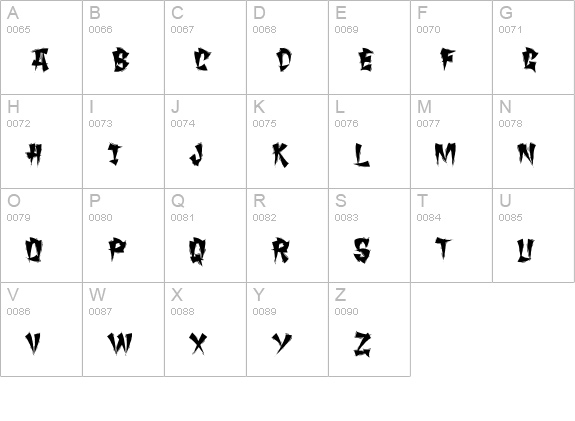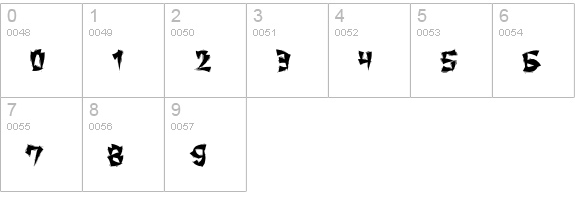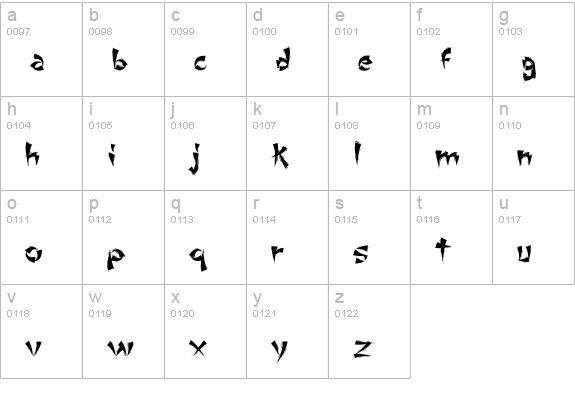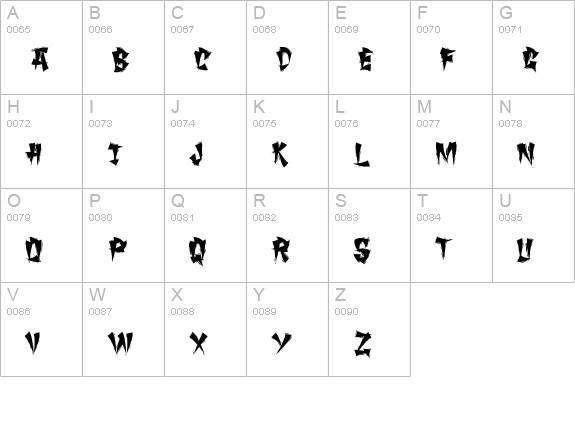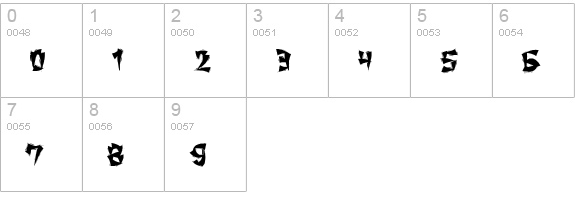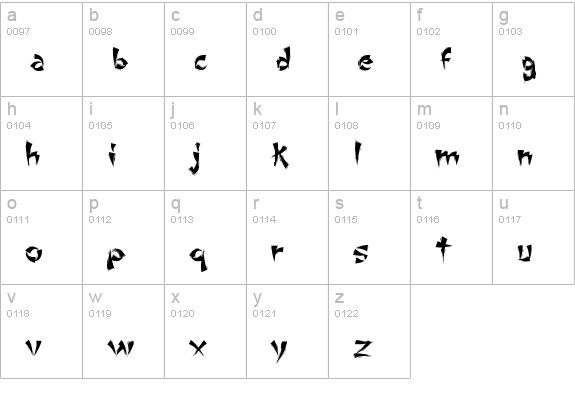
ChangChang Font Details
Introducing ChangChang font – a captivating and versatile typeface that is sure to make your designs stand out! With its elegant curves and modern aesthetic, ChangChang font is perfect for a wide range of projects, from branding to editorial design. What's even better is that ChangChang font is completely free to download at FontsMarket.com! Yes, you heard that right – this stunning font can be yours at no cost at all. So why wait? Elevate your design projects with ChangChang font today and leave a lasting impression on your audience.